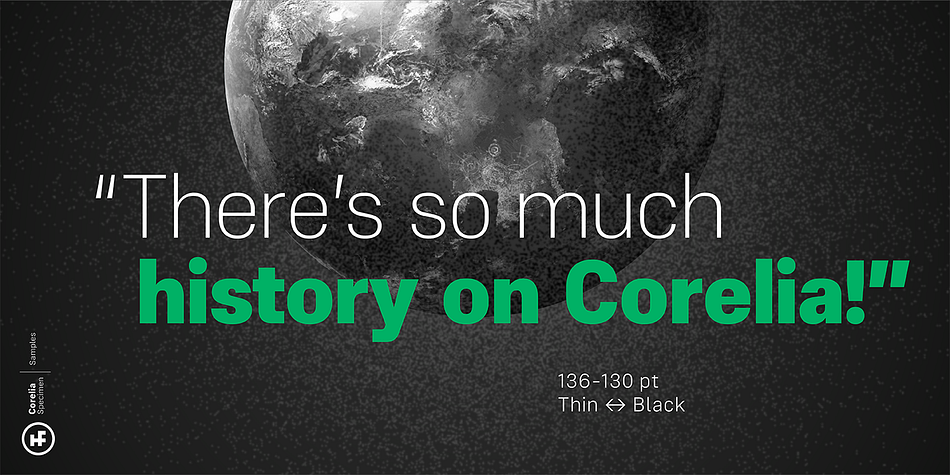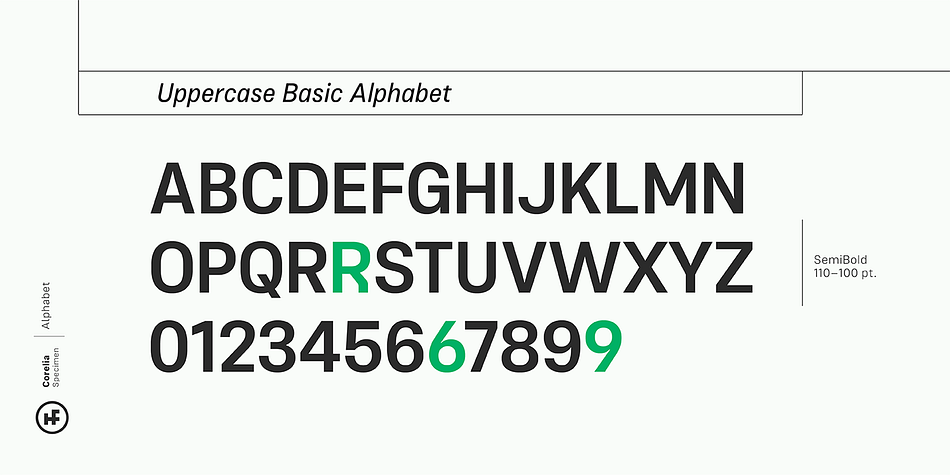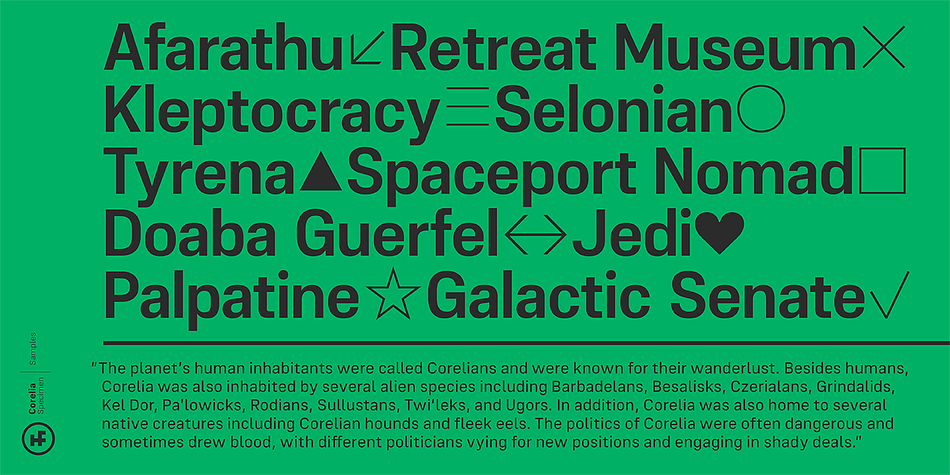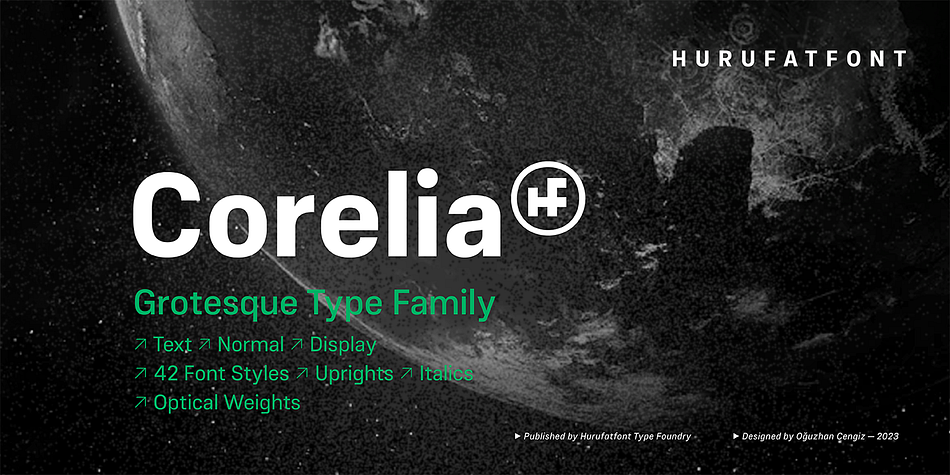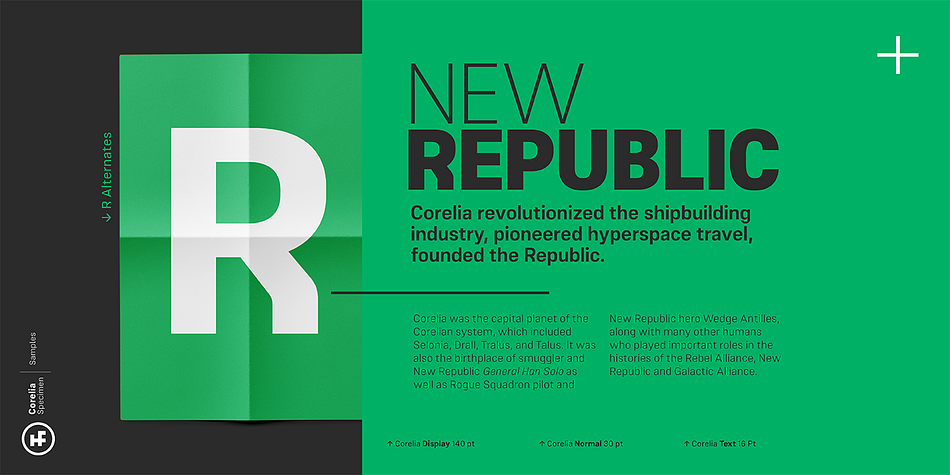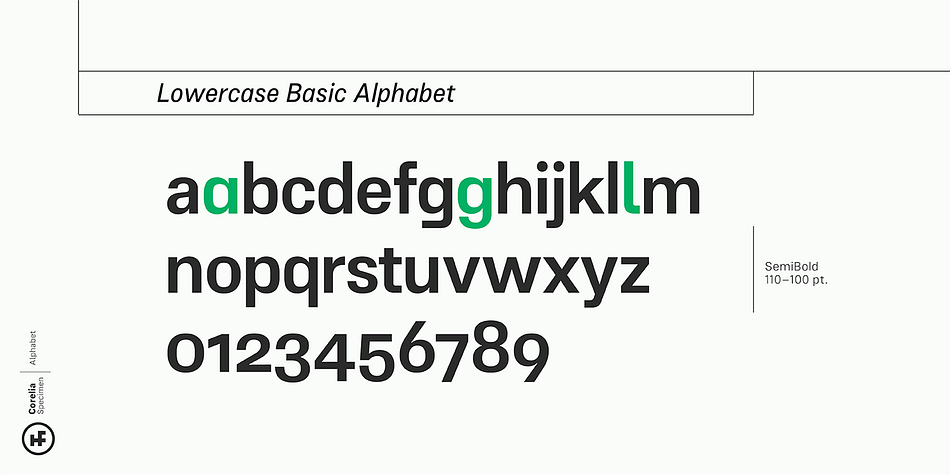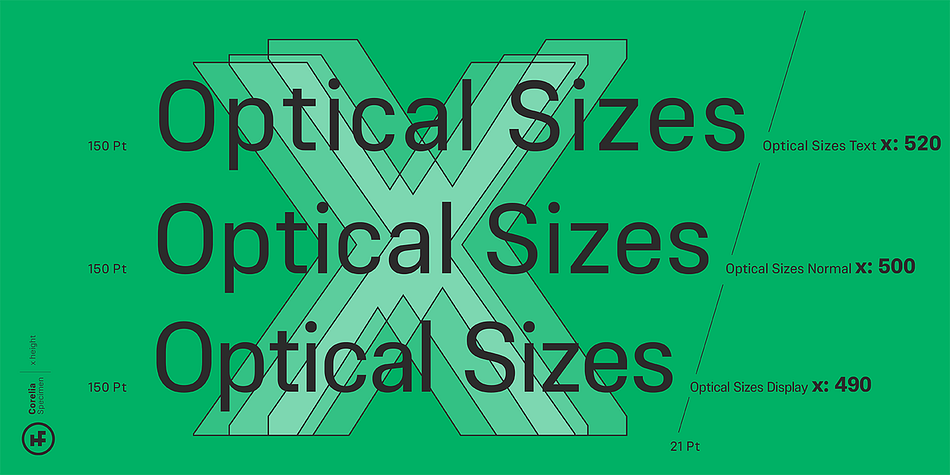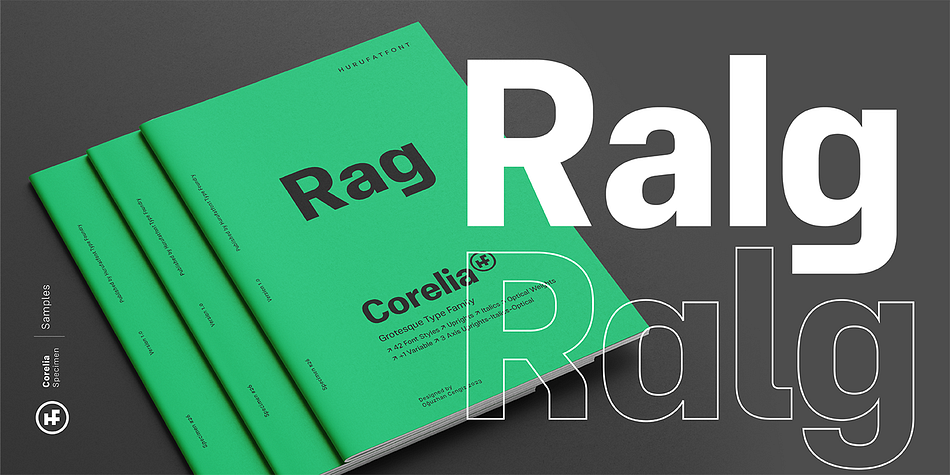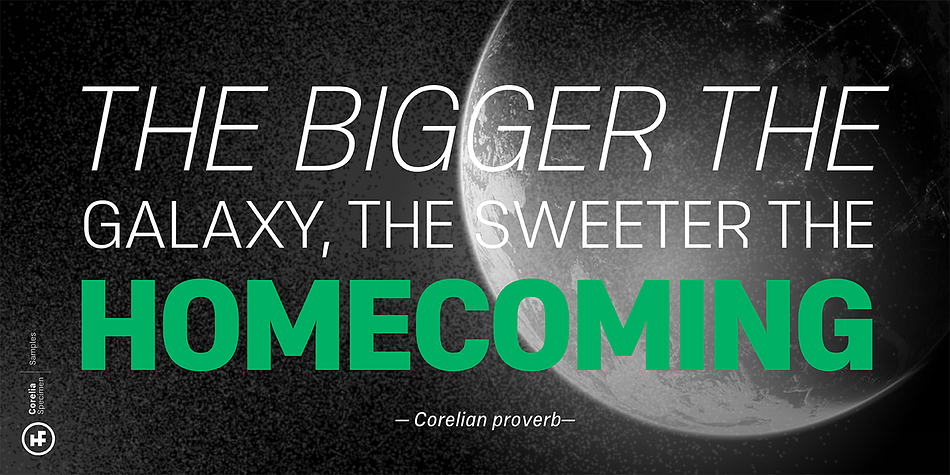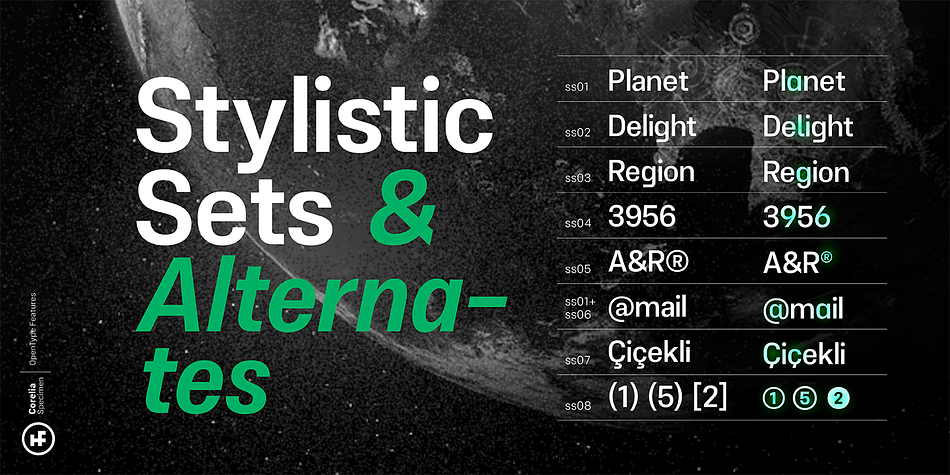
Corelia
Designed by Oğuzhan Cengiz, Corelia is a sans serif font family. This typeface has forty-two styles and was published by Hurufatfont Type Foundry.
Corelia; It has a compact, lean, industrial and neutral body structure. Text and Display versions provide a very wide usage area. Ideal for modern brand designs.
It includes rich OpenType features with custom number styles.